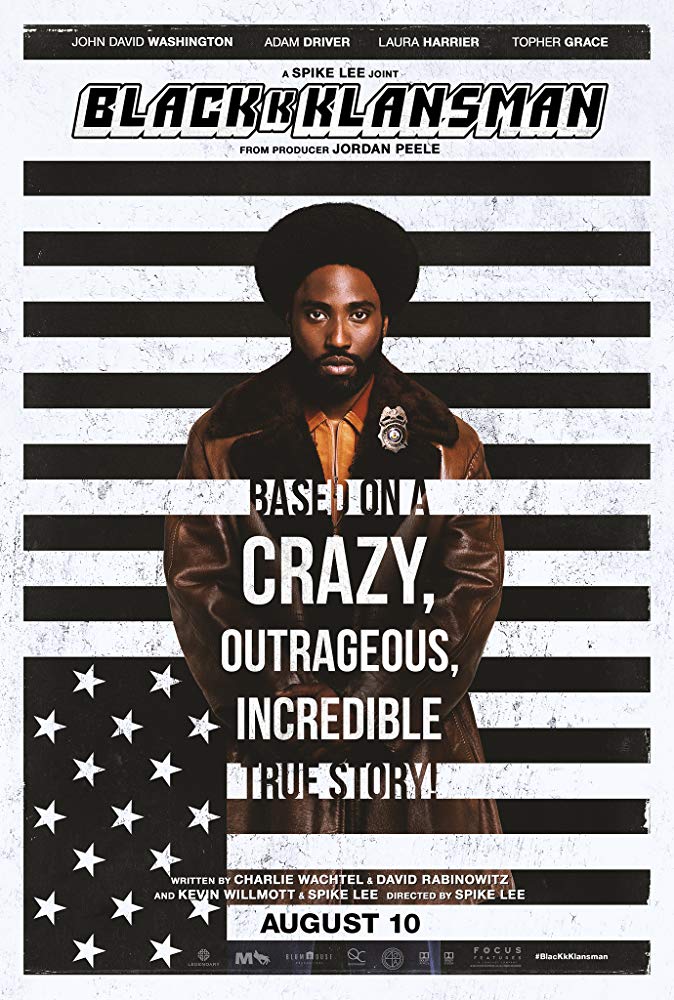
BlacKkKlansman Font
BiographyBlacKkKlansman is a 2018 American biographical crime film directed by Spike Lee. The film is based on the 2014 memoir Black Klansman by Ron Stallworth, an African-American police officer who infiltrated the white supremacist Ku Klux Klan in Colorado Springs, Colorado, in the late 1970s.
The typeface for the BlacKkKlansman's title is a modified version of Tom Carnase's blocky shadowing outline capitals from 1970, called ITC Pioneer. The additional sans-serif fonts used are Helvetica and Bebas Neue.